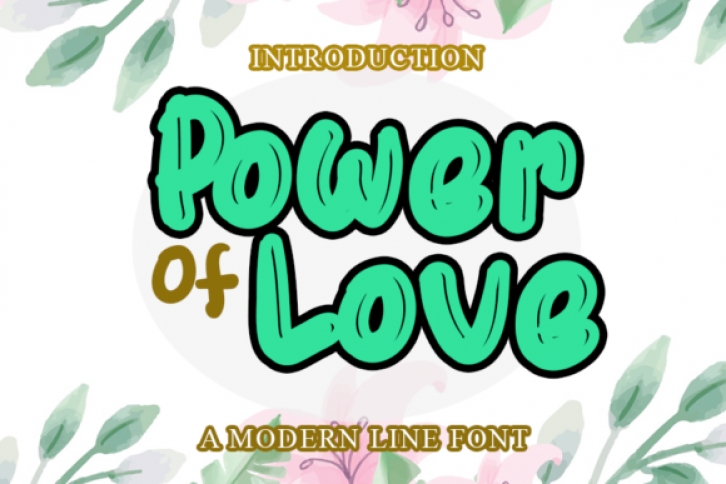
Power Of Love is a stunning display font. It looks beautiful on a wide variety of projects such as wedding invitations, valentines day cards, thank you cards, weddings, greeting cards, logos, and so on.